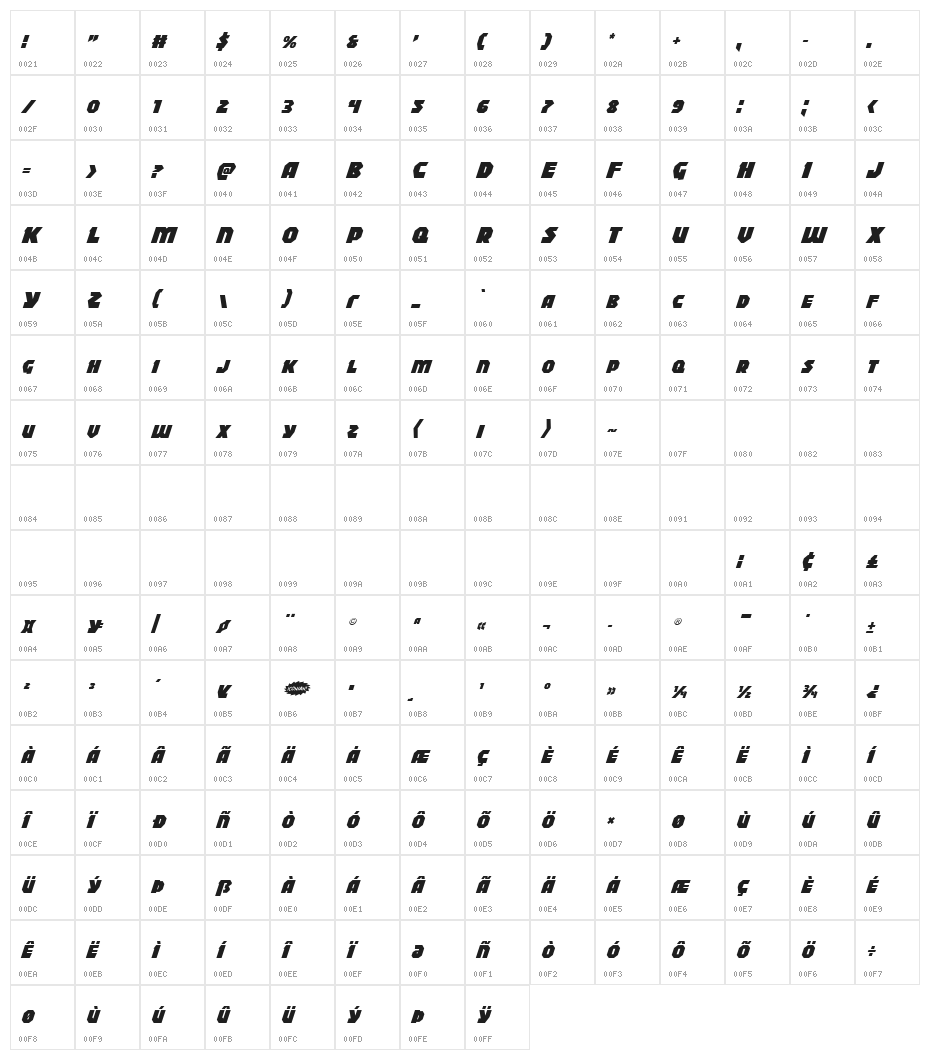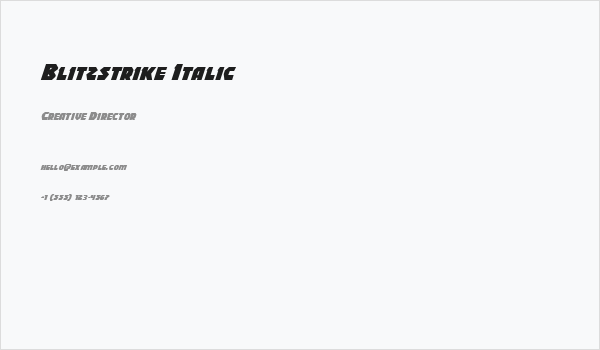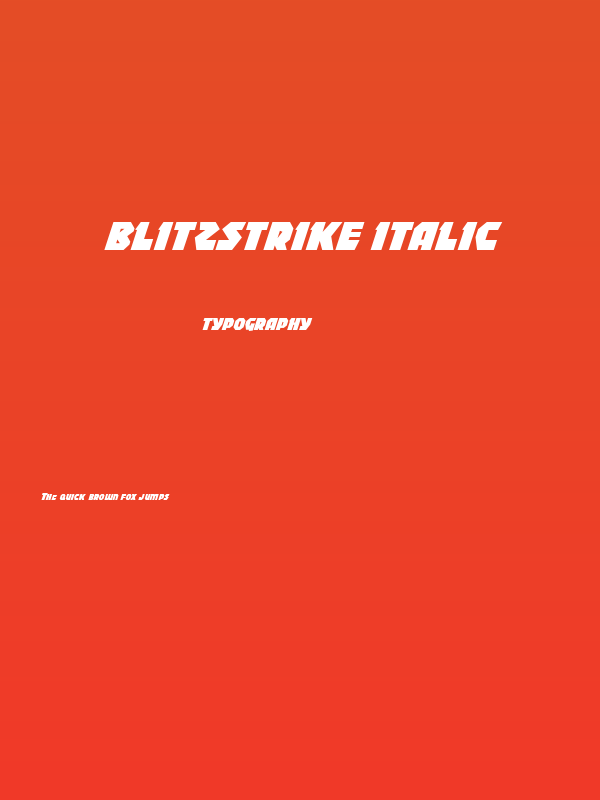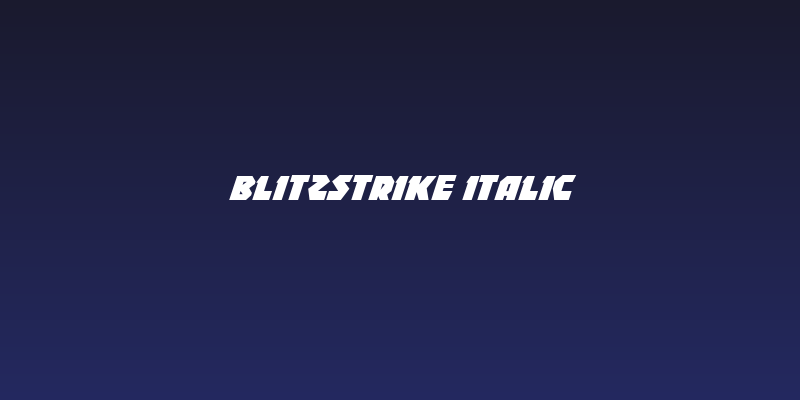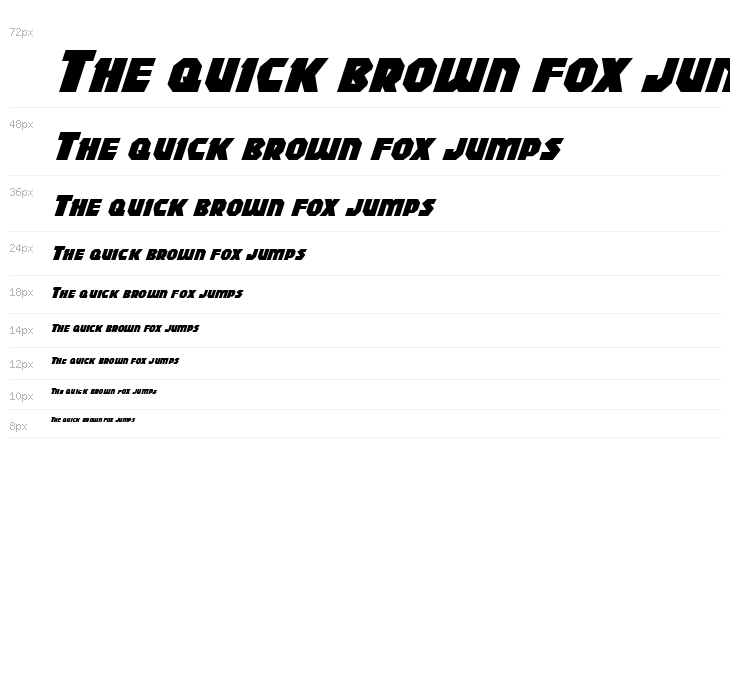
Blitzstrike Italic Font
Blitzstrike Italic Description
This font features a bold and dynamic style with a strong italic slant, giving it a sense of motion and energy. The characters are angular and geometric, with sharp edges and a futuristic appearance. The uppercase and lowercase letters maintain a consistent style, while the numerals and special characters are designed to match the overall aesthetic. This font is ideal for projects that require a modern and impactful look, such as sports branding, video game titles, or action-themed posters.
| Proposed Projects | Ideal for sports branding, video game titles, action-themed posters, and dynamic logos. |